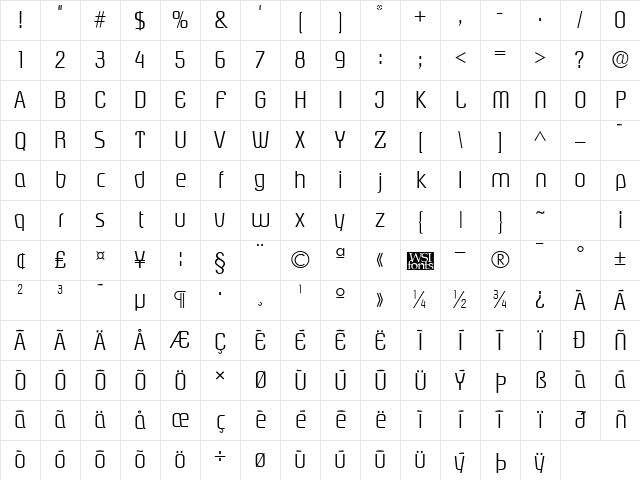
PloverLight Regular
PloverLight Family
Design Context for PloverLight
PloverLight is a composed and adaptable typeface that performs quietly and consistently across a wide range of design contexts. Its slender proportions lend an understated elegance to any composition.